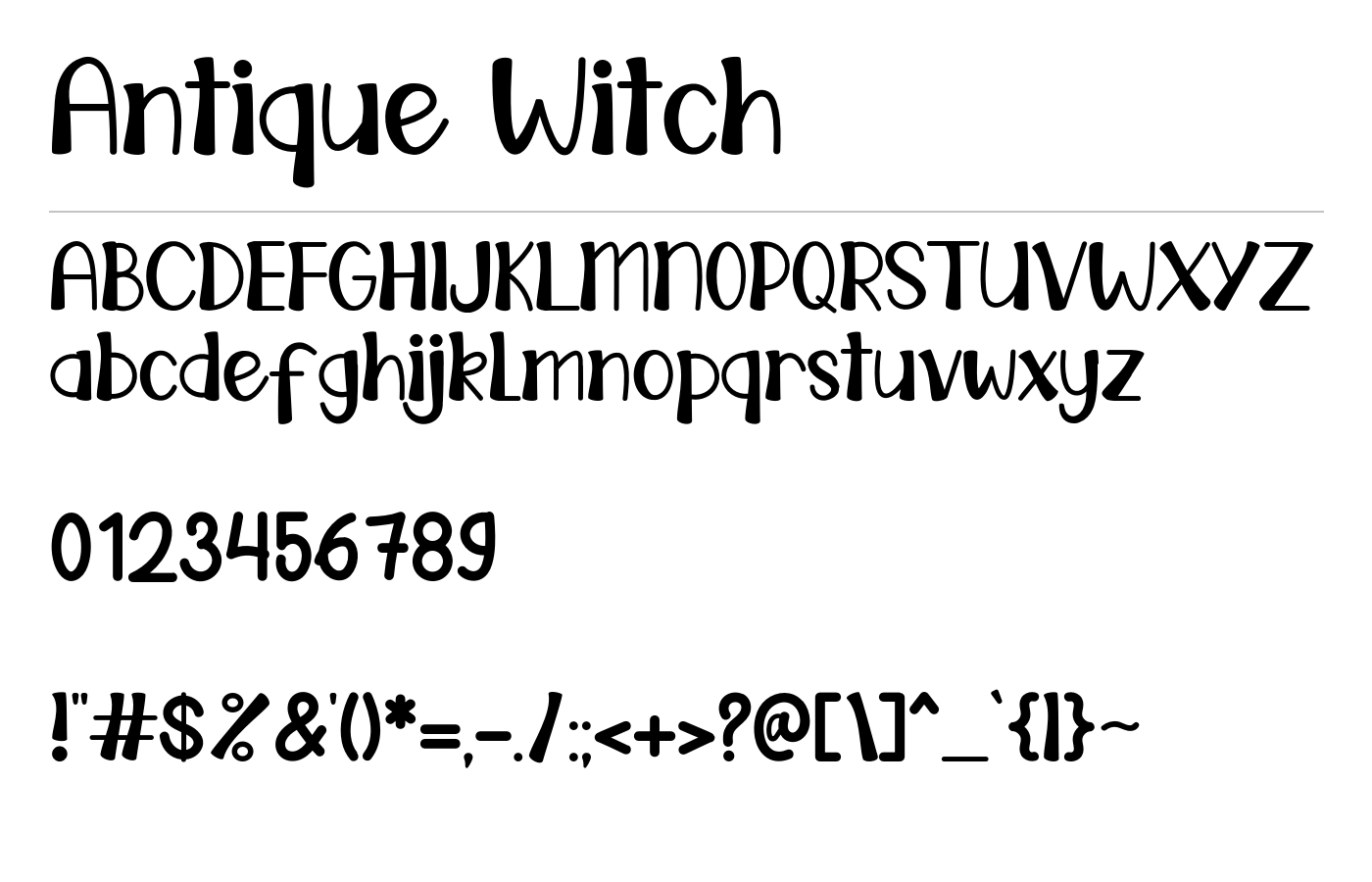
Antique Witch is a playful and whimsical sans serif font with irregular, rounded letterforms that give it a charming, hand-drawn feel. Its moderate weight and quirky shapes make it perfect for creative, informal designs like children’s books, Halloween themes, or artistic branding where a friendly and approachable tone is desired. This font works well in headlines and display use, adding personality without sacrificing readability.
Antique Witch Font
About Antique Witch Font